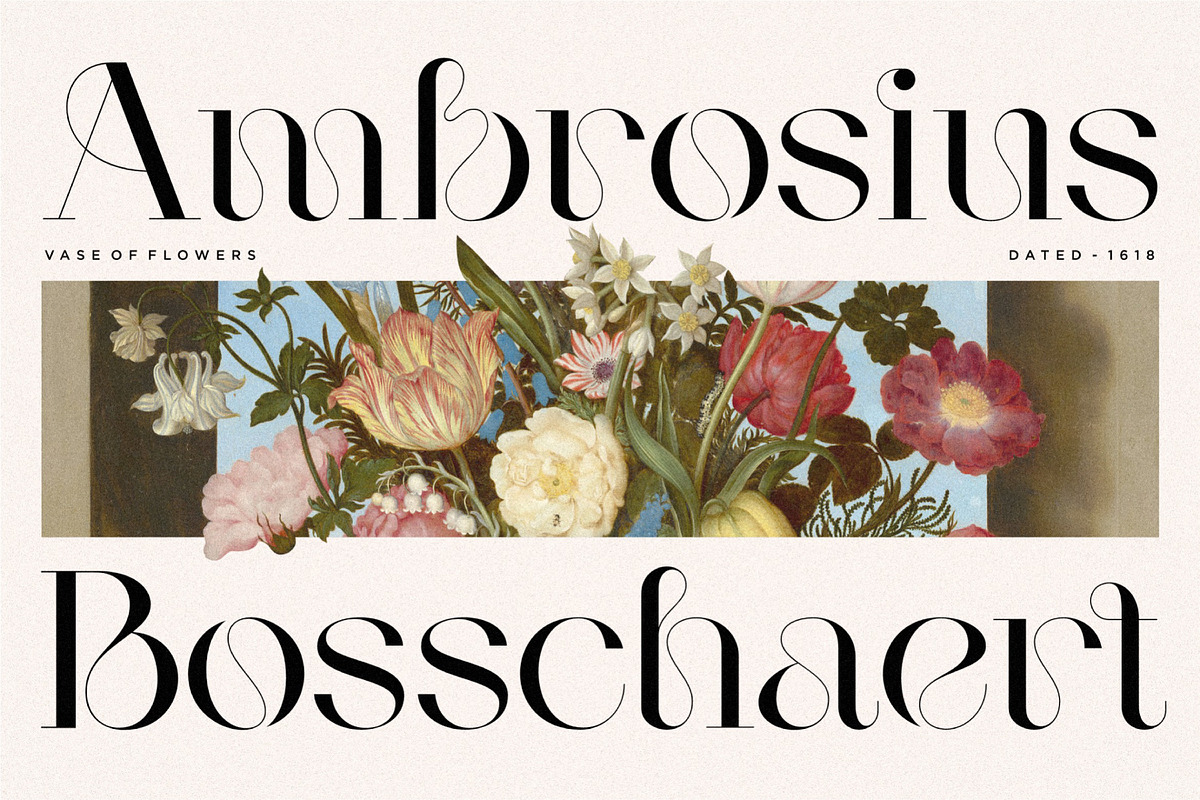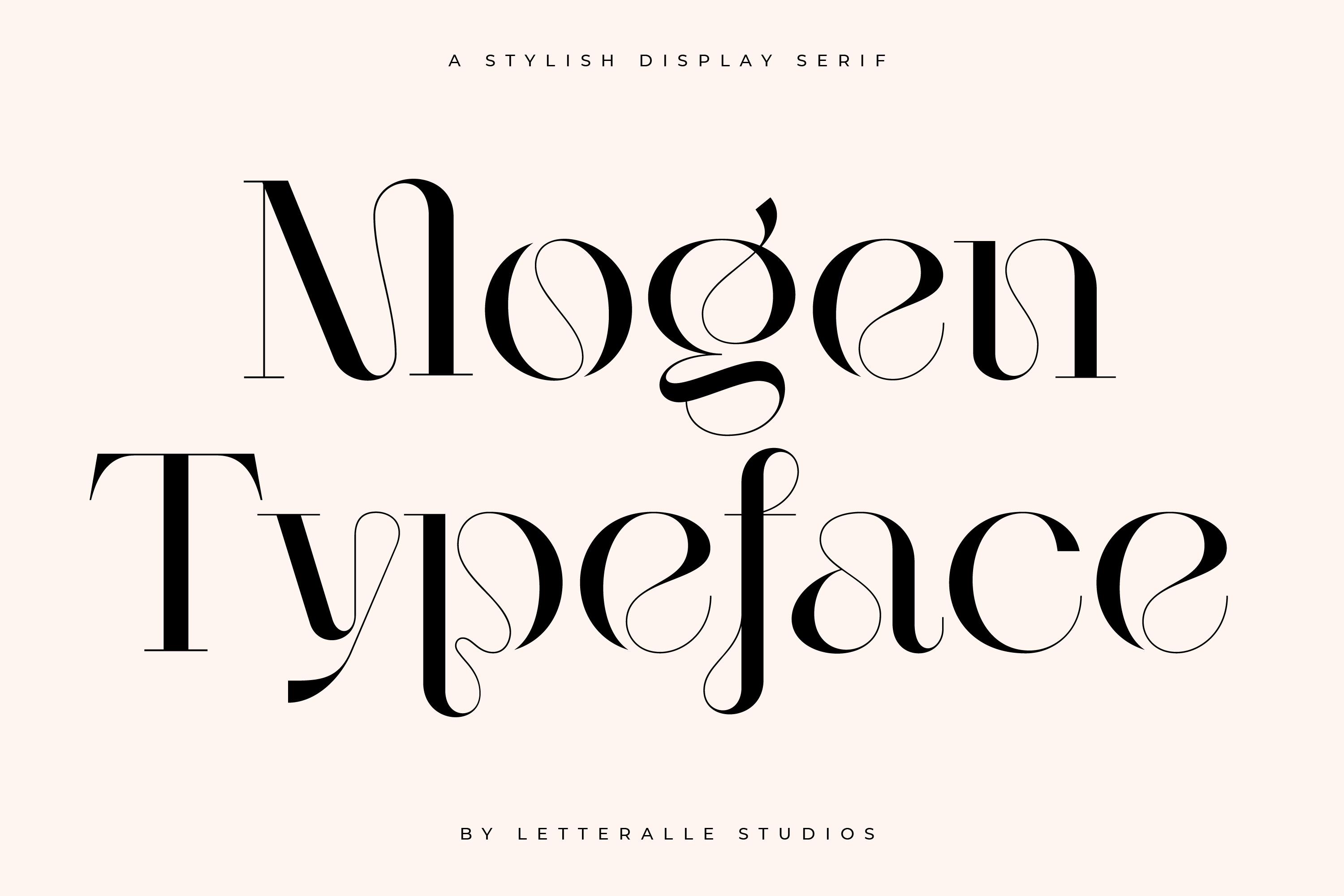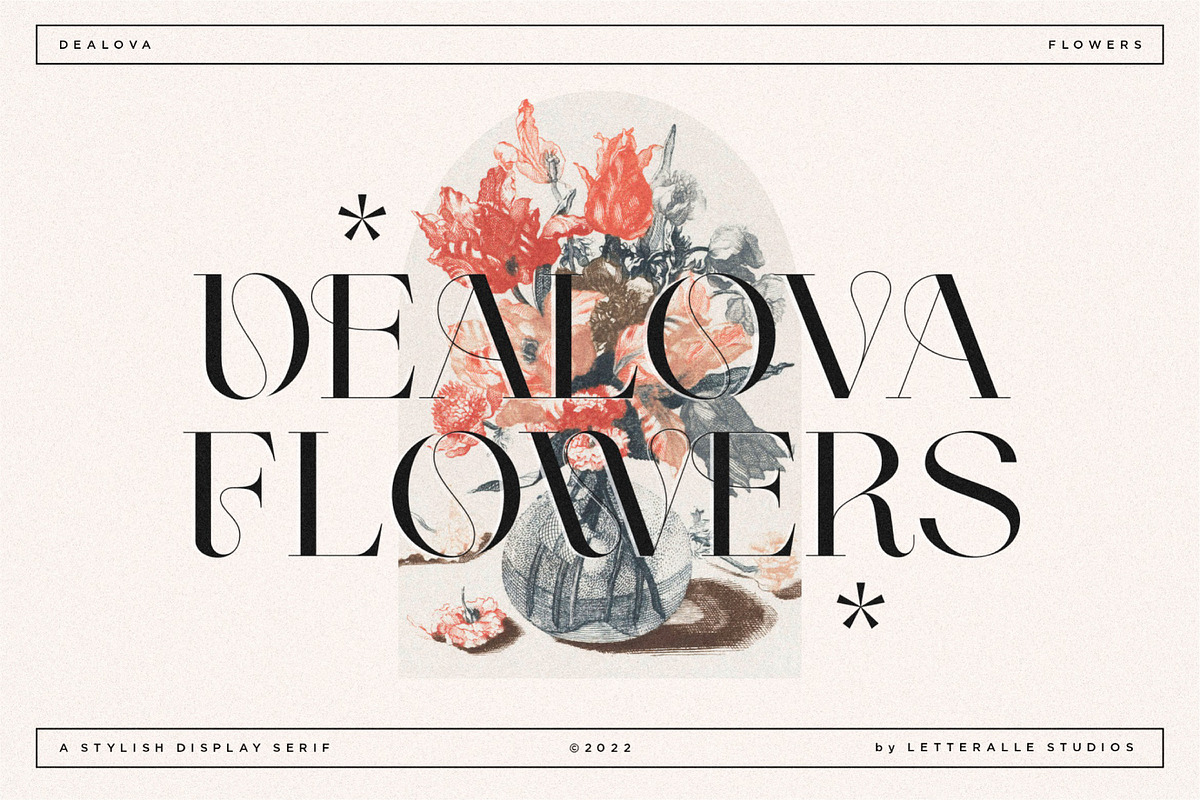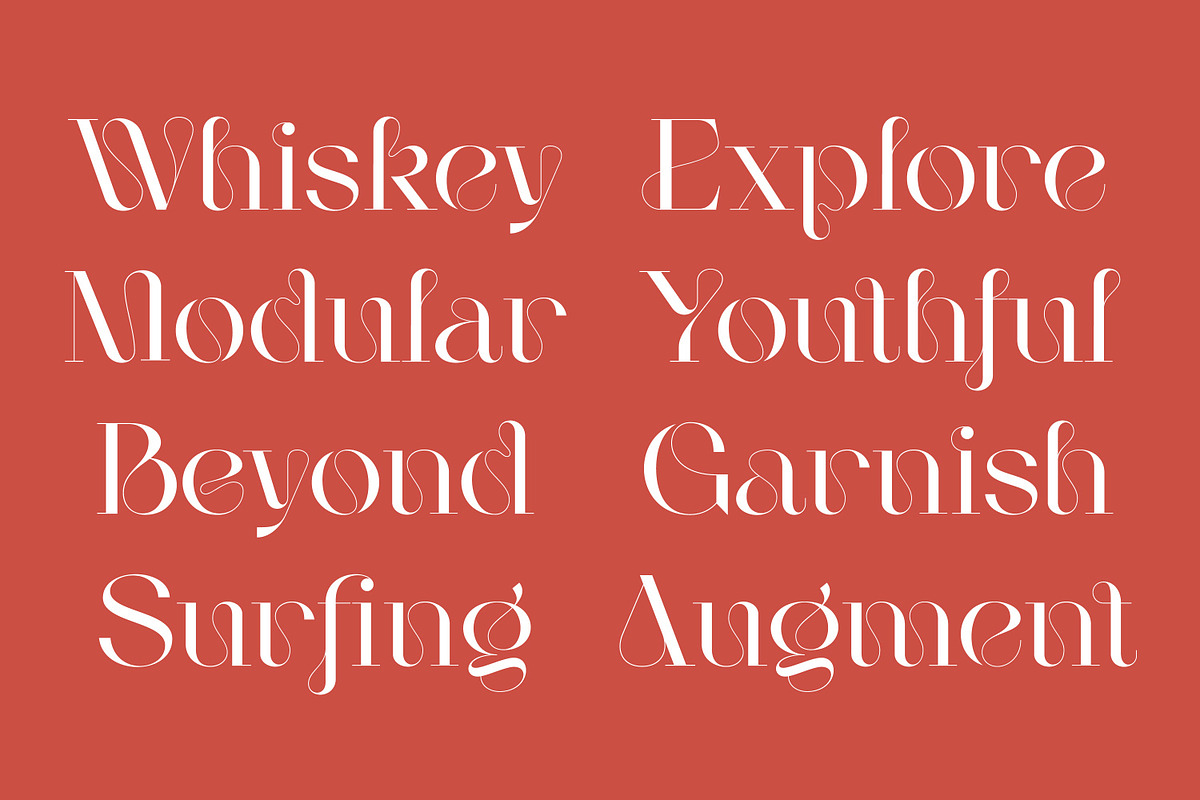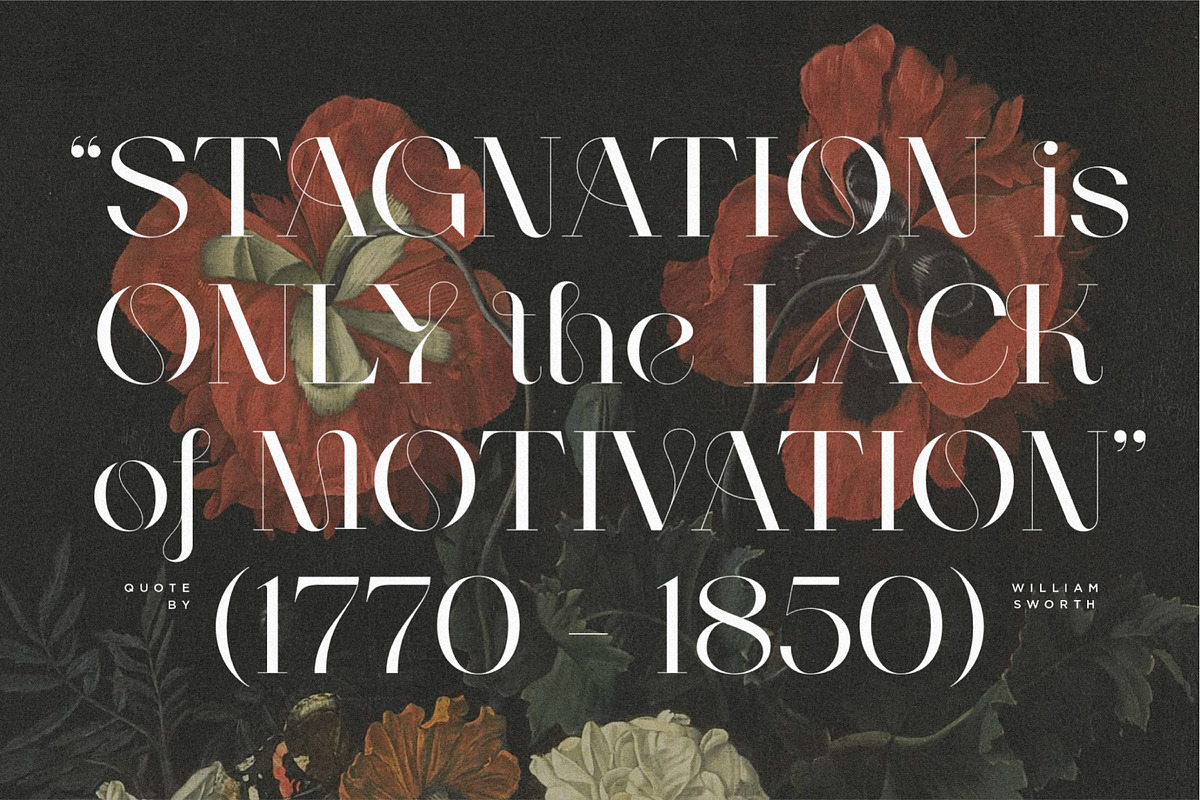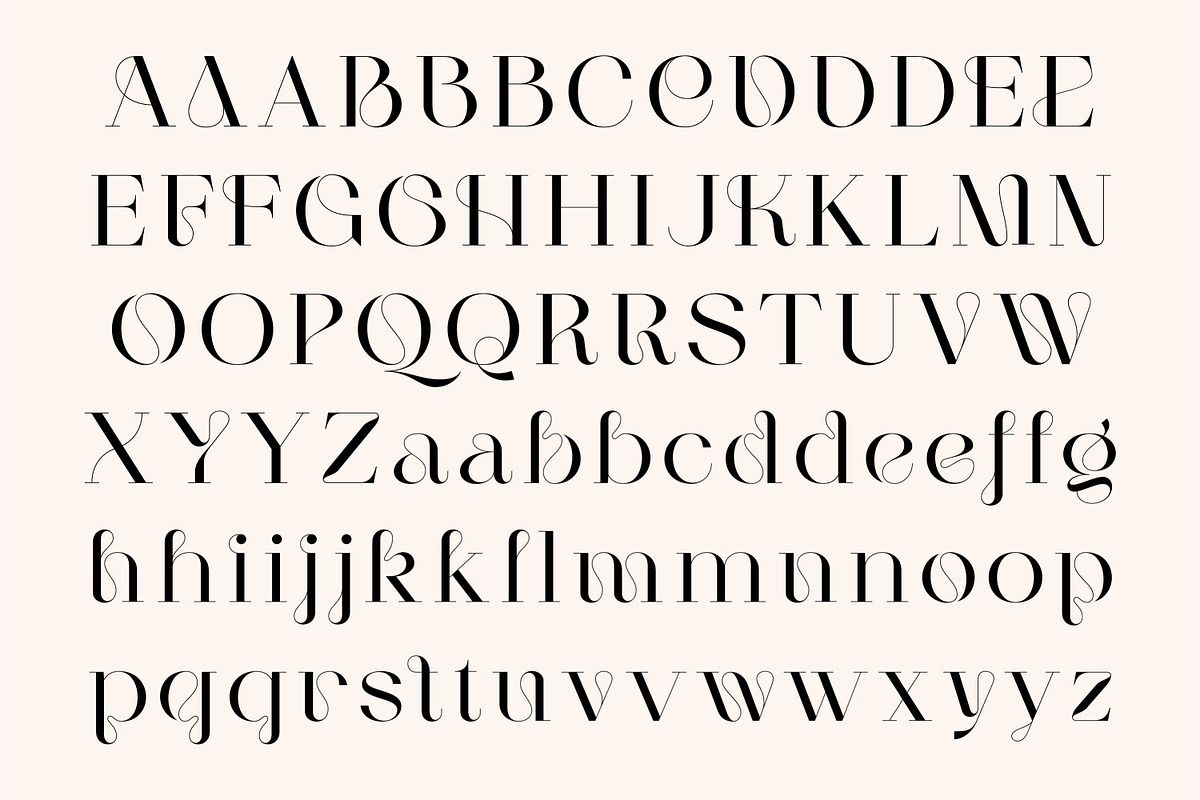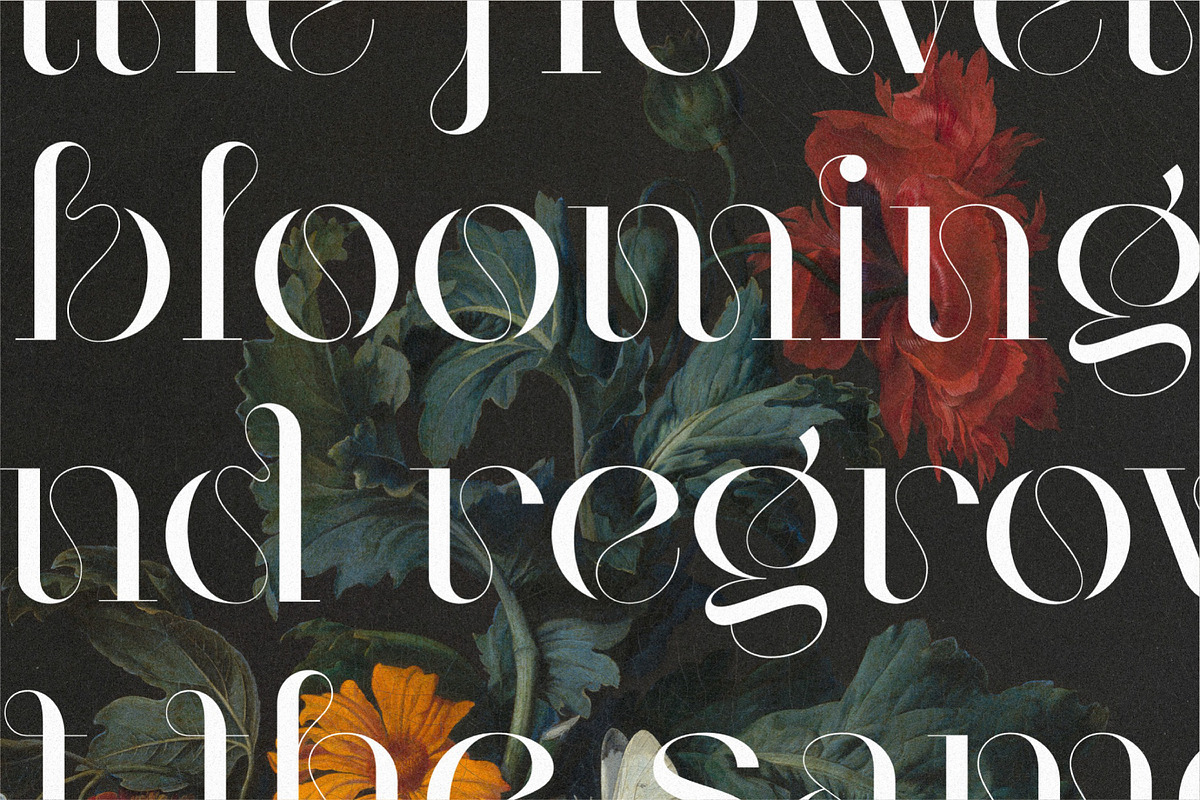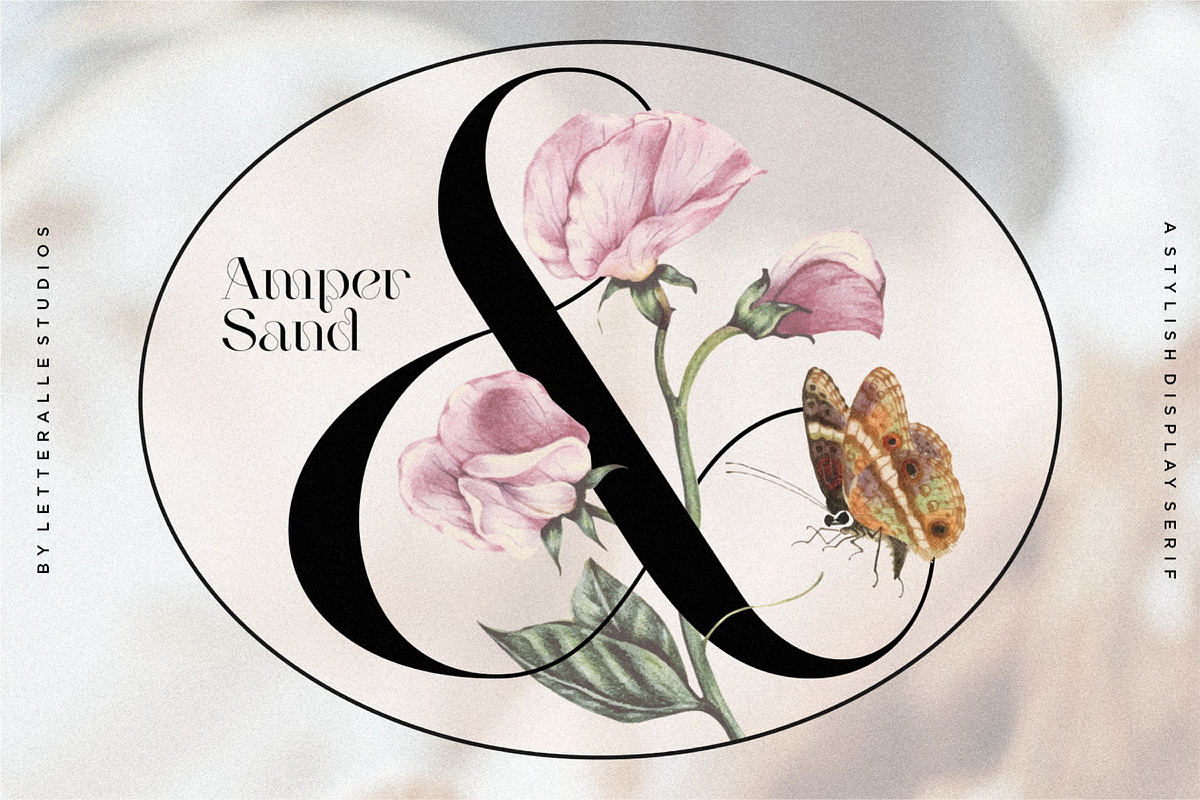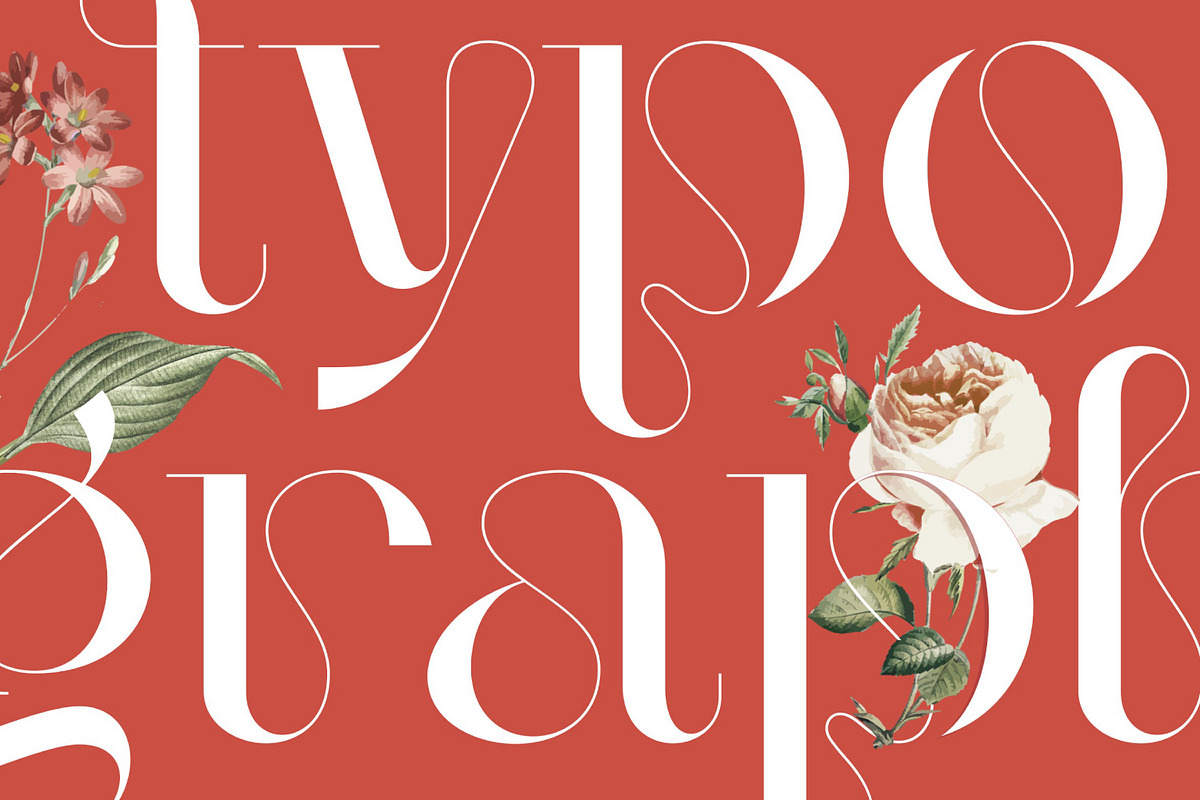
Mogen Serif Font
Introducing, Mogen! a serif display font with a modern yet luxurious style. Aesthetic and unique letterforms, as well as soft curves and wild shape of the letters make this font so iconic.
Mogen is Perfect for editorial projects, Logo design, Wedding, Clothing Branding, product packaging, magazine headers, or simply as a stylish text overlay to any background image.
- Full Uppercase & Lowercase Character.
- Numeral, Punctuation, Multilingual Accents.